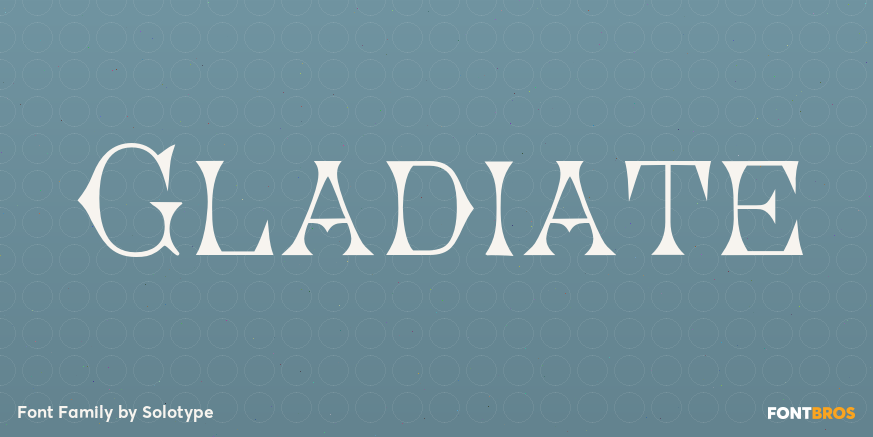
Gladiate
About Gladiate
This was a favorite of job printers in late Victorian times. They used it on cards and stationery, as well as small handbills. It was made in a range of sizes from 10 point to 36 point. Good for places where you really don\’t want to shout.